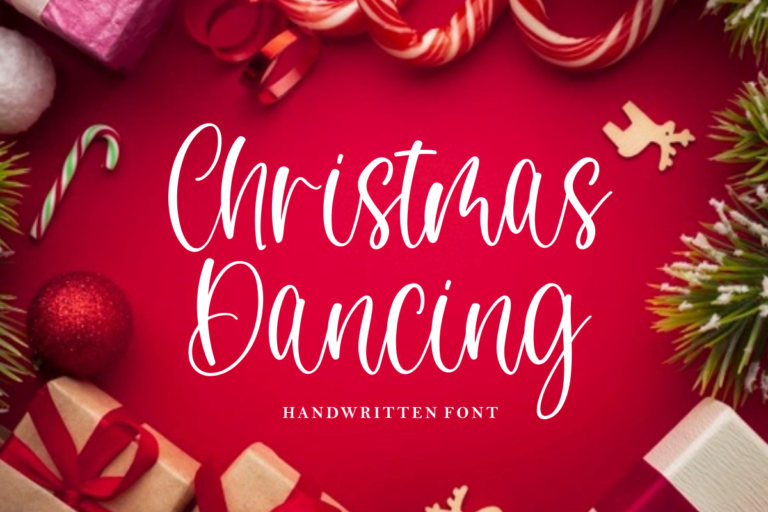
- Christmas Dancing – Handwritten Font
Christmas Dancing
Christmas Dancing – is a modern handwritten. This font is made in a modern style with elegantly, very casual and suitable for your various design needs I’tsPerfect for logo,branding, tittle, social media posts, advertisements, product packaging, product designs, label, photography, watermark, special event,magazine,web design,etc.
- Christmas Dancing ( Uppercase, Lowercase )